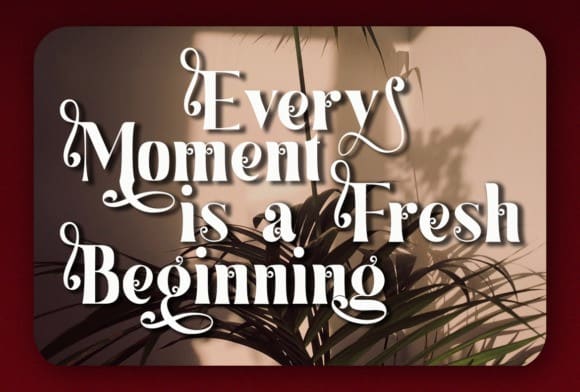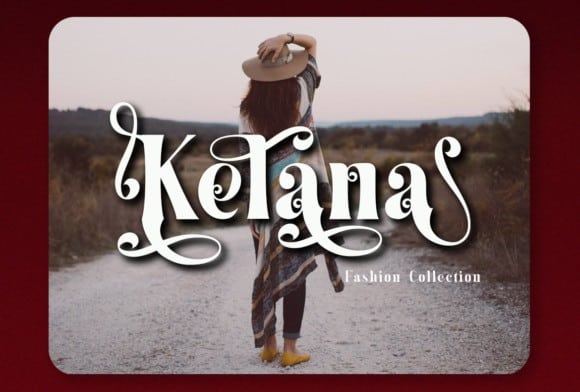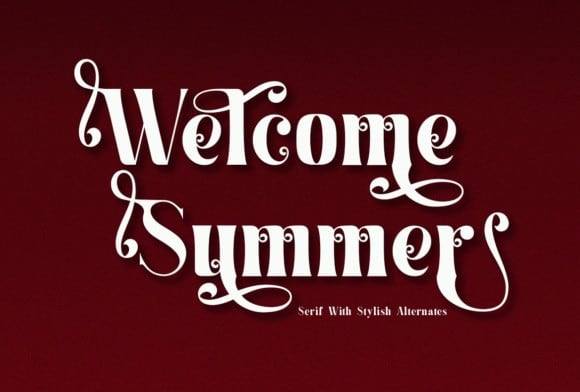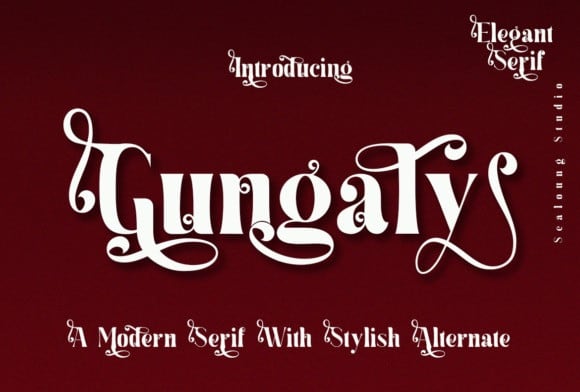
Gungaly Serif Font
Gungaly Serif fonts includes uppercase letters, numerals, a large range of punctuation. It’s designed and shared by Sealoung. Serif font with modern style. Use this serif font to add that special trendy touch to any design idea you can think of!